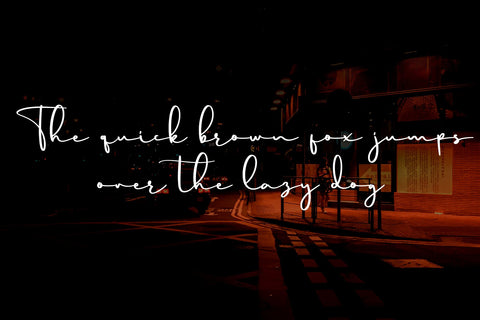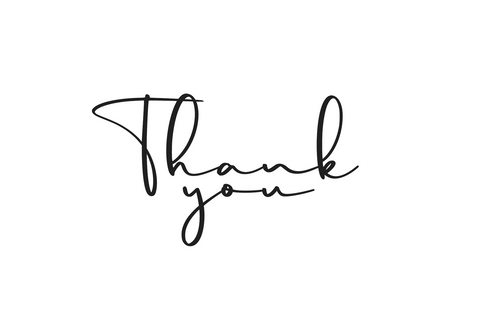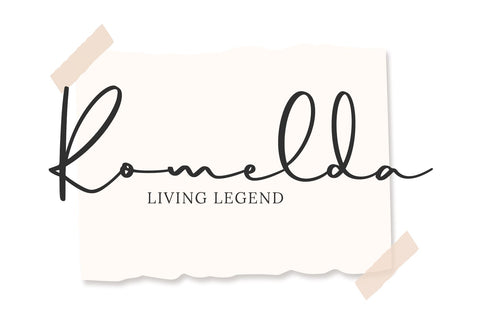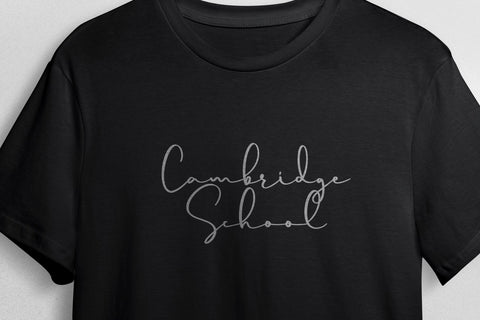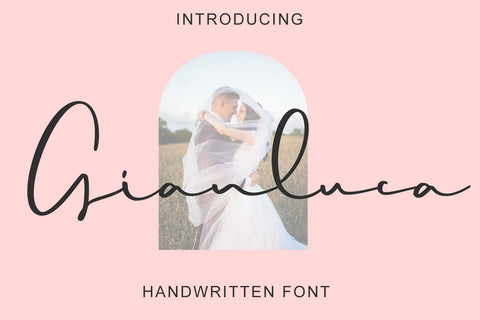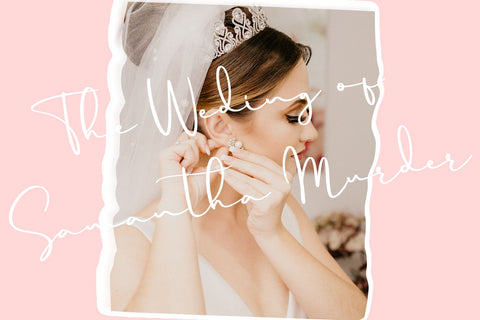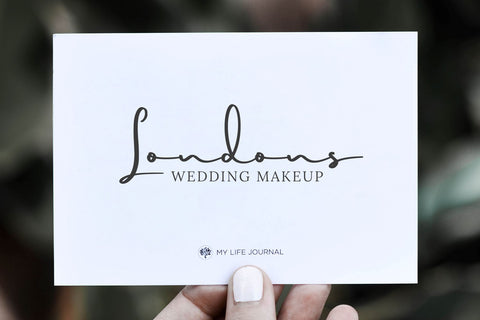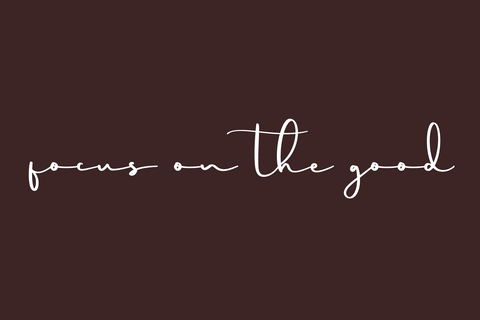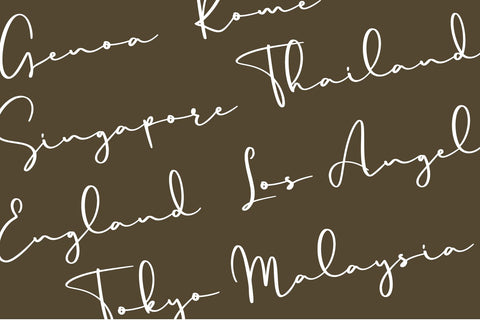
Gianluca - a Handwritten Font
Gianluca is an exquisite handwritten font, masterfully designed to become a true favorite. It maintains its classy calligraphic influences while feeling contemporary and fresh.